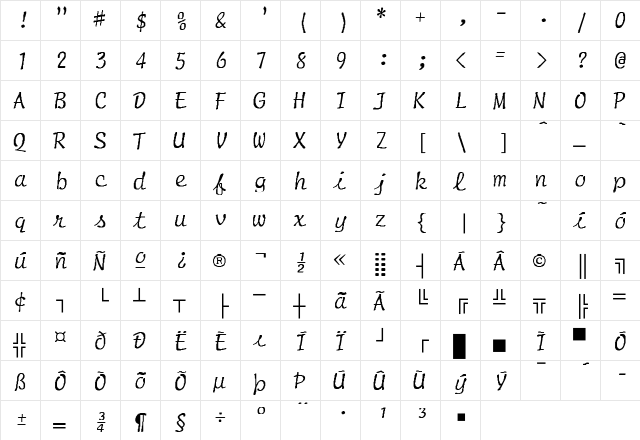
Bayes Normal Regular
Design Context for Bayes Normal Typeface
Bayes Normal takes a measured approach to typography — its balanced proportions and neutral character make it a reliable workhorse for both digital and print work.